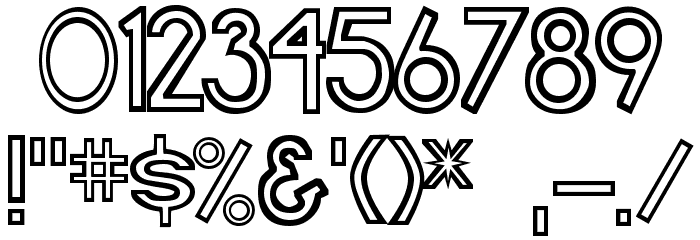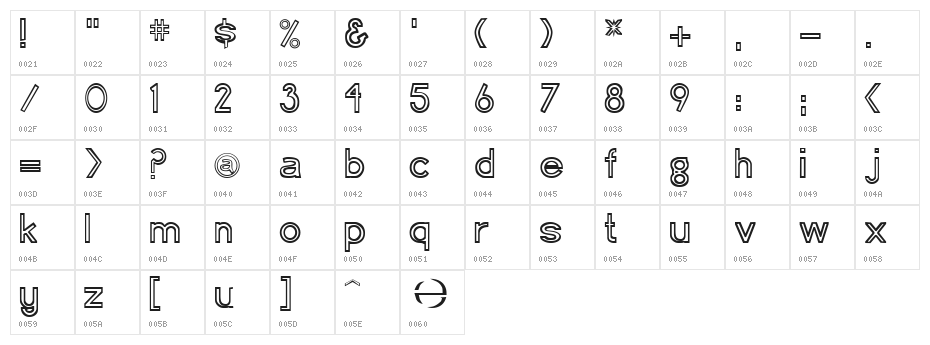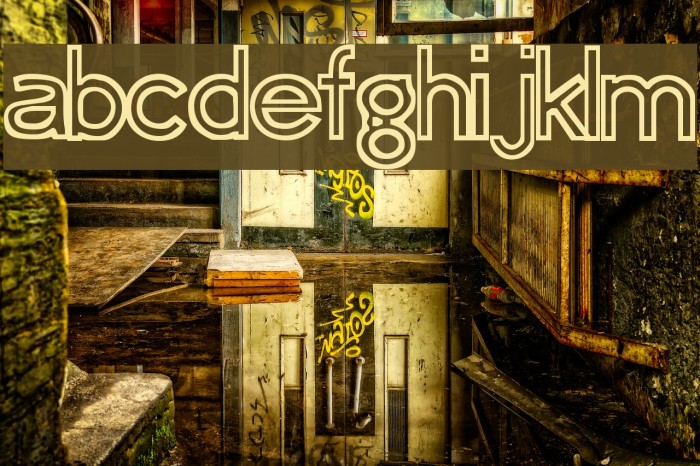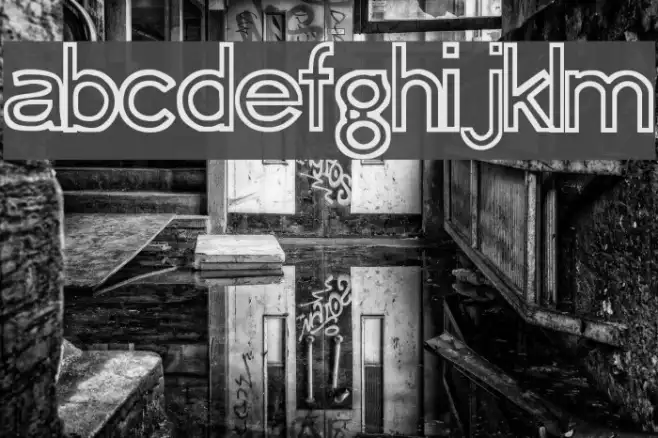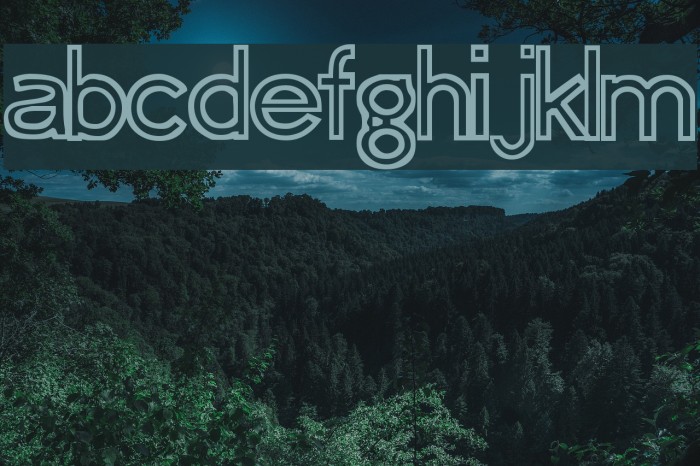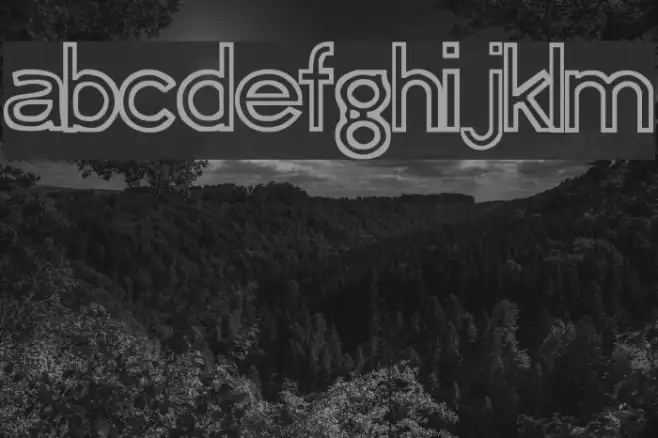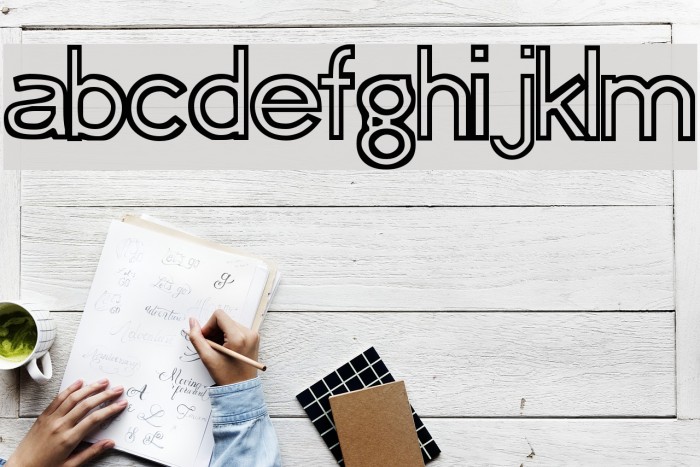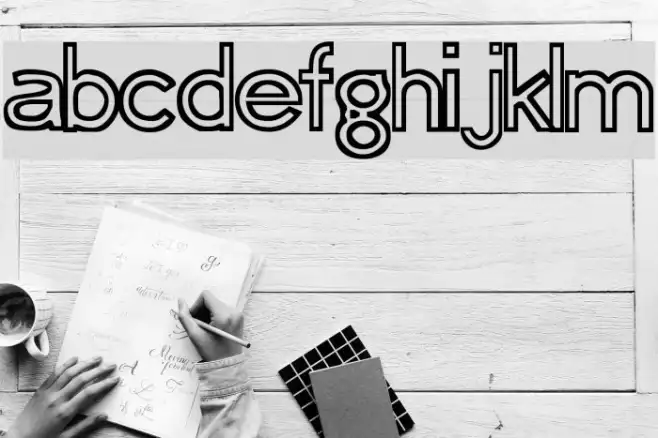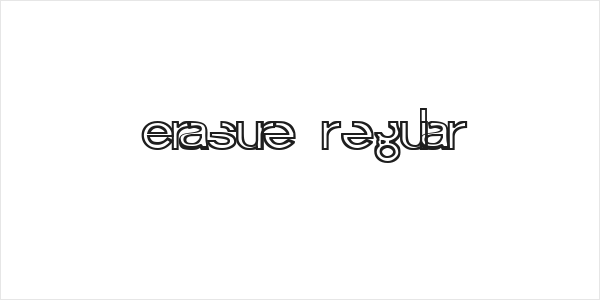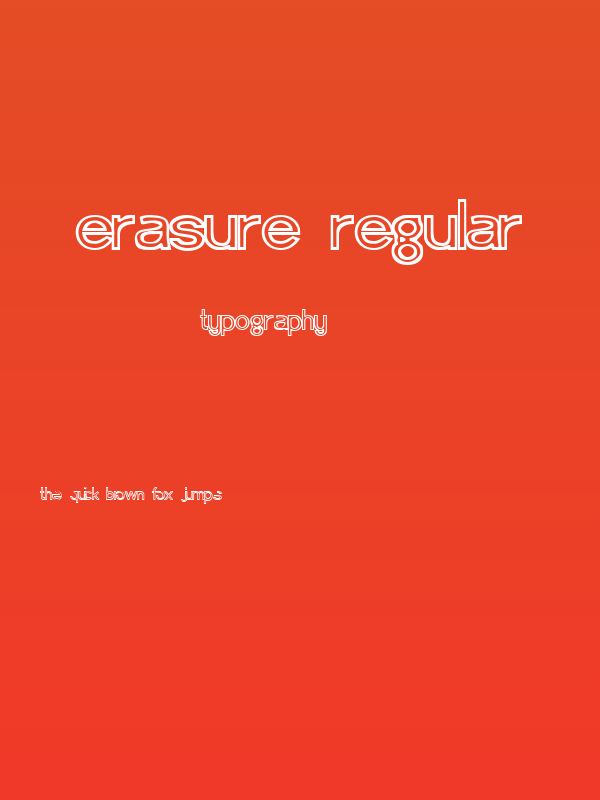
Erasure Regular Font
Erasure Regular Description
This font features a unique outline style that gives it a modern and edgy appearance. The characters are constructed with a bold, hollow design, creating a striking visual impact. The uppercase and lowercase letters maintain a consistent geometric form, with rounded edges and uniform line thickness. The numerals and special characters follow the same design principles, ensuring a cohesive look across all glyphs. This font's distinct style makes it ideal for projects that require a contemporary and bold statement.
| Proposed Projects | Ideal for branding, posters, headlines, and digital media where a bold and modern aesthetic is desired. |